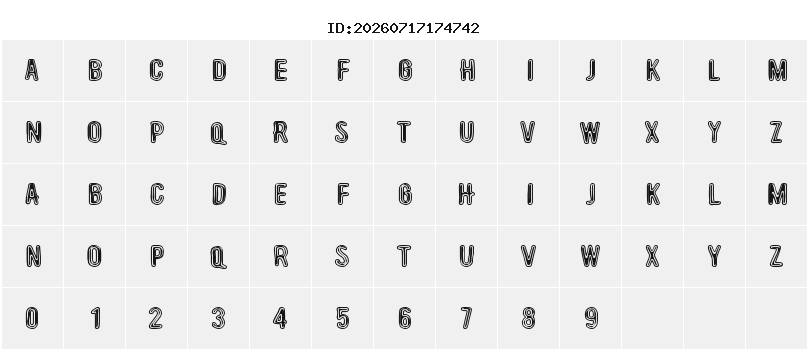
Beyond These Things Preview
• Font Name: Beyond These Things
• Designer: junkohanhero
About Beyond These Things.ttf
Beyond These Things.ttf is a modern, elegant sans-serif font designed for ultimate readability and visual harmony. Perfect for branding, headlines, web design, and print materials.